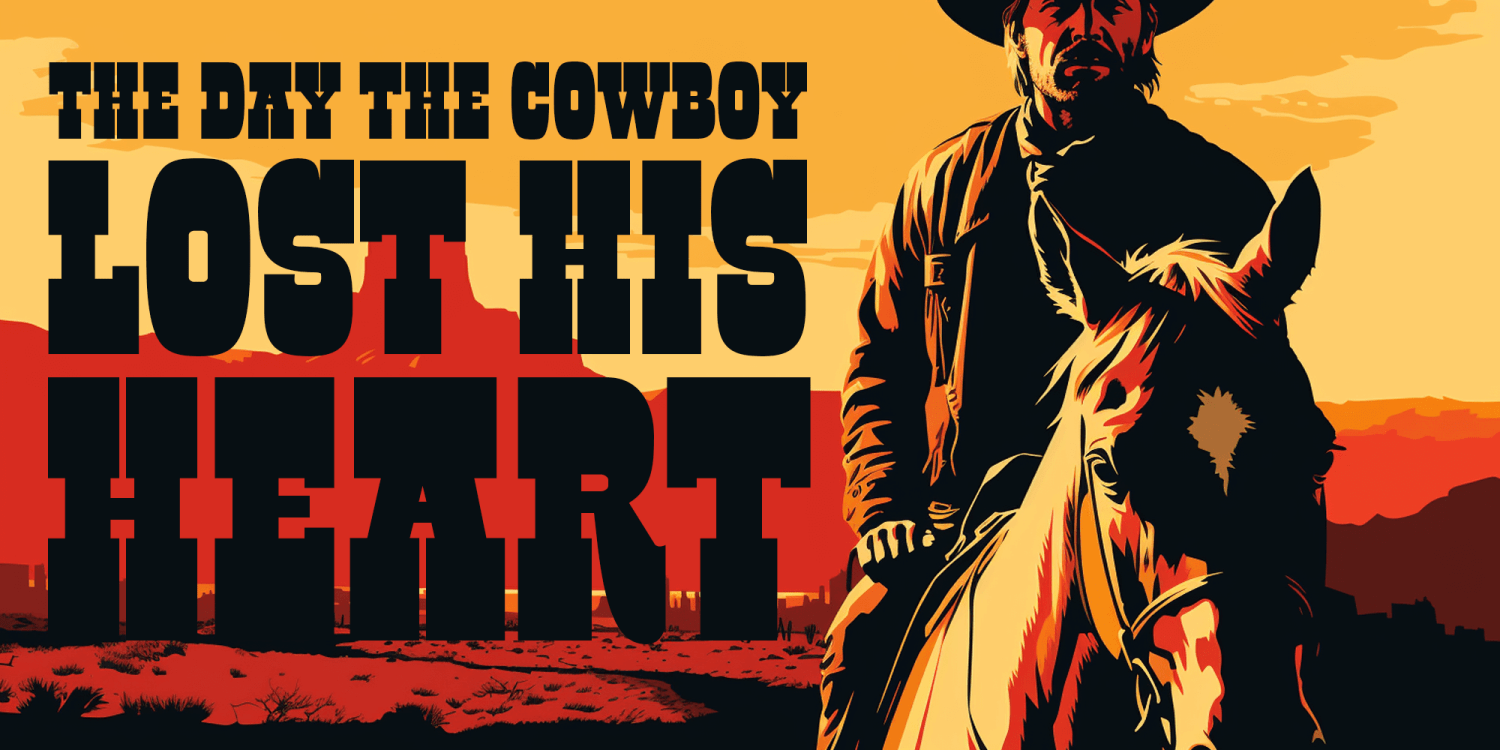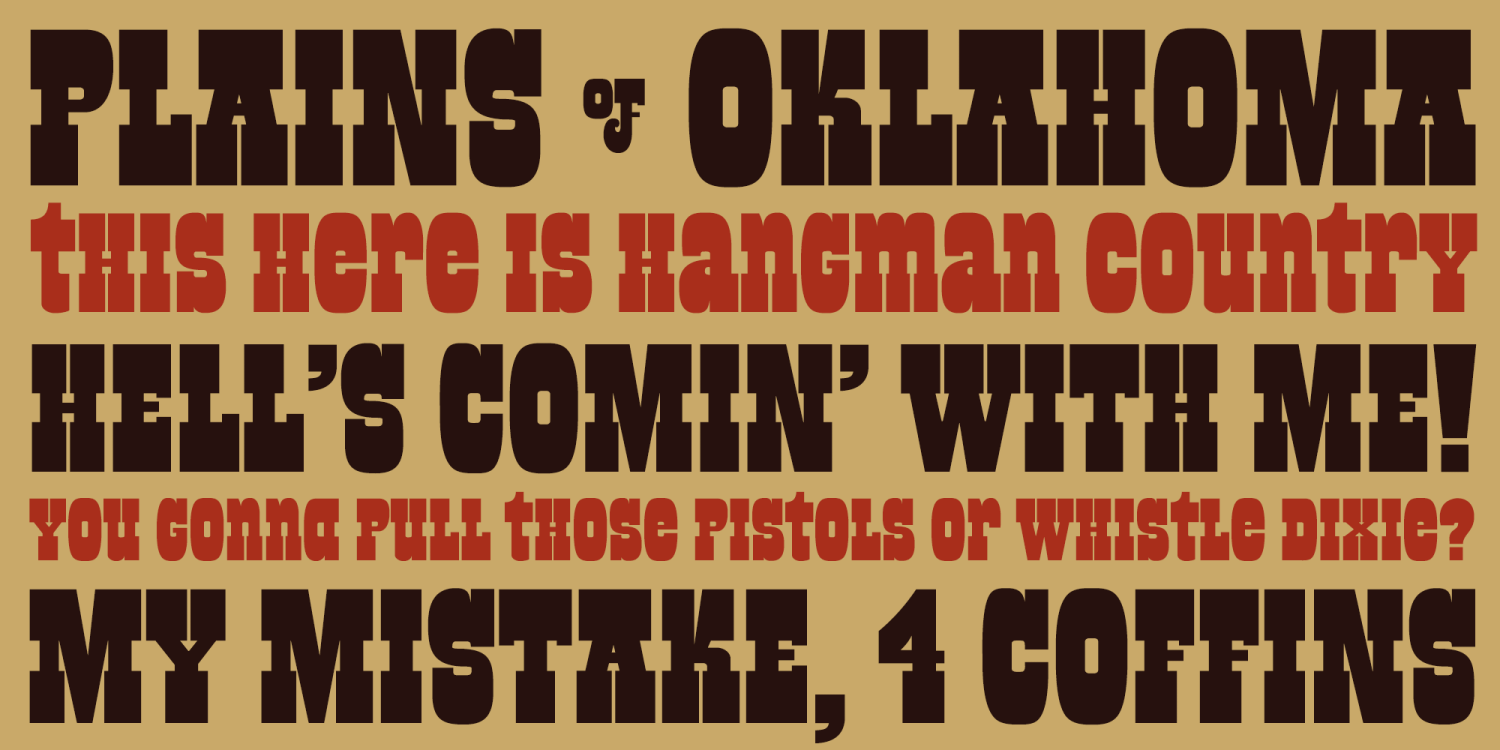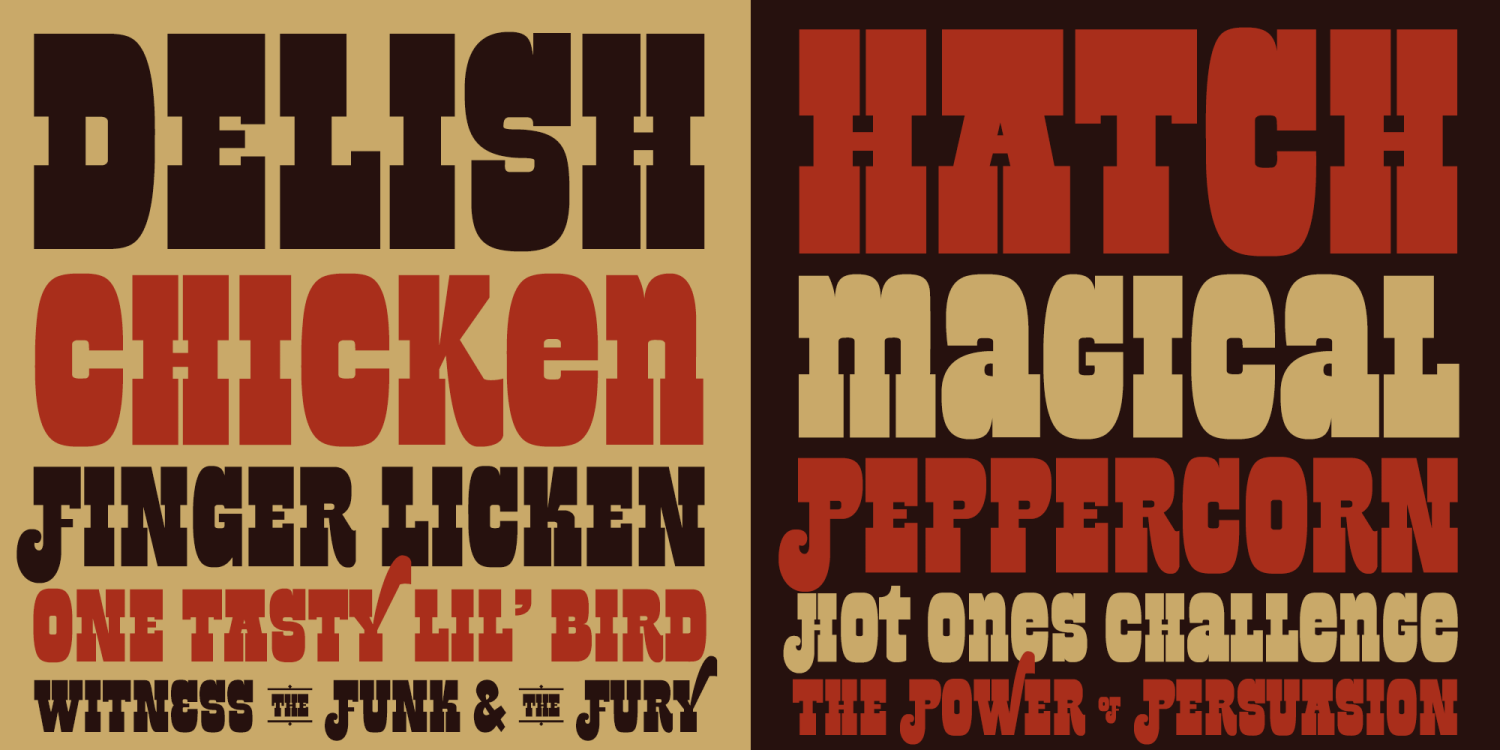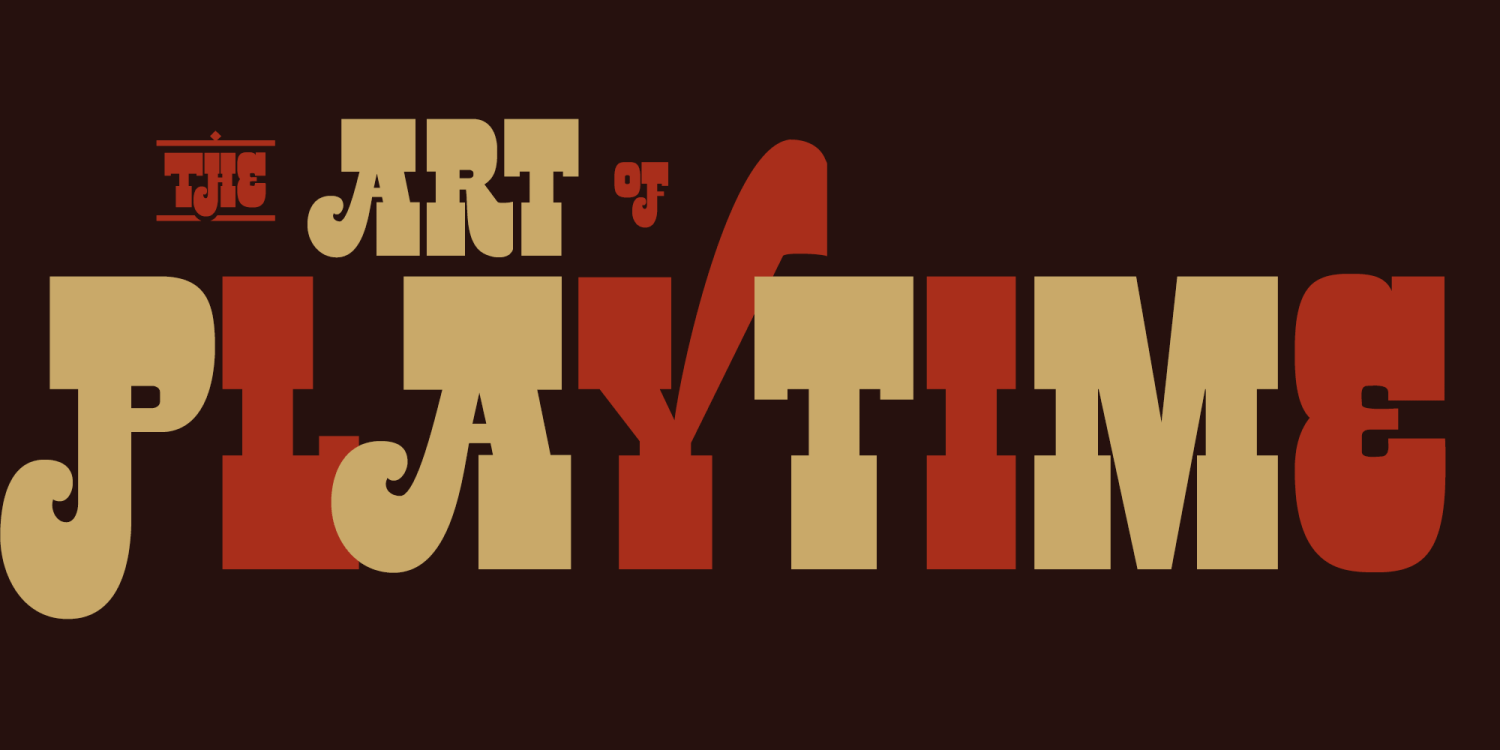
About Black Bart
Black Bart comes form my love of old beefy wood type designs. Stylistic Alts offer a few variations on unicase letters A a E N R, as well as ligatures for words like "OF", "THE", "AND", and some starting letters A F H P R.…